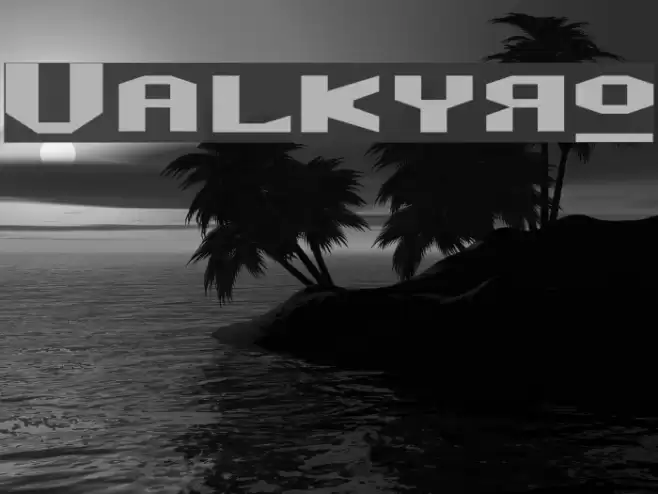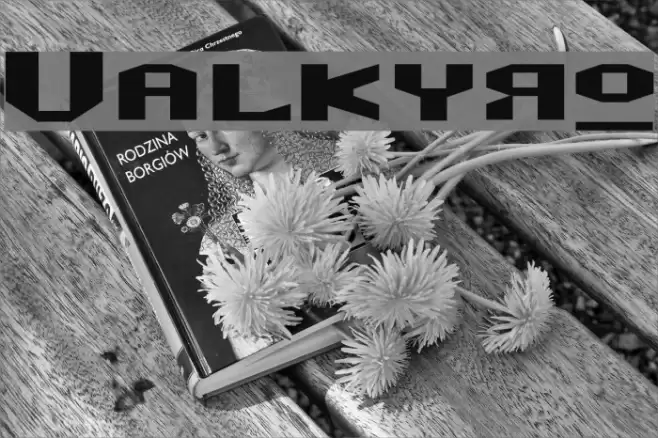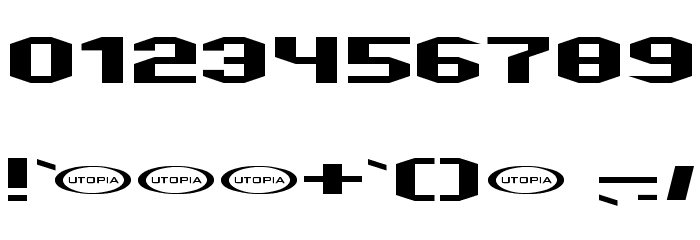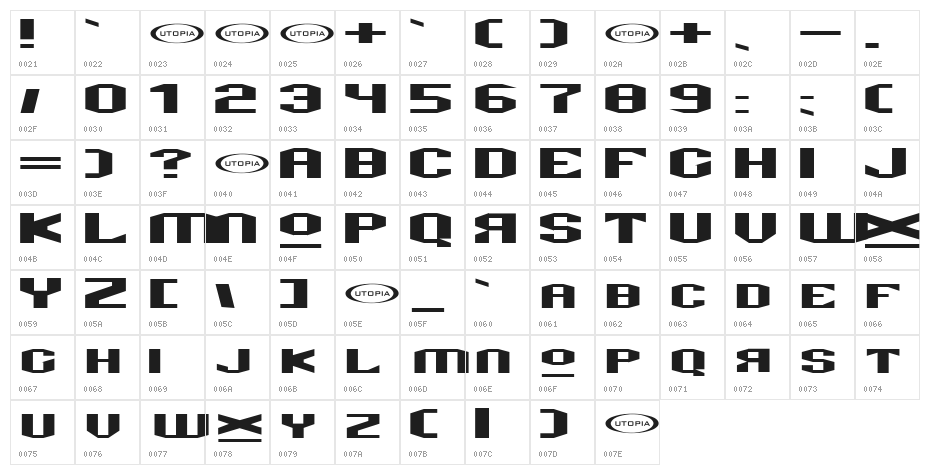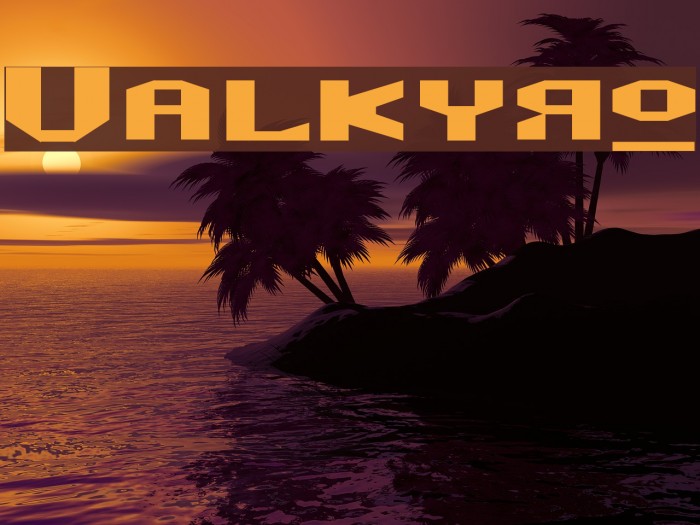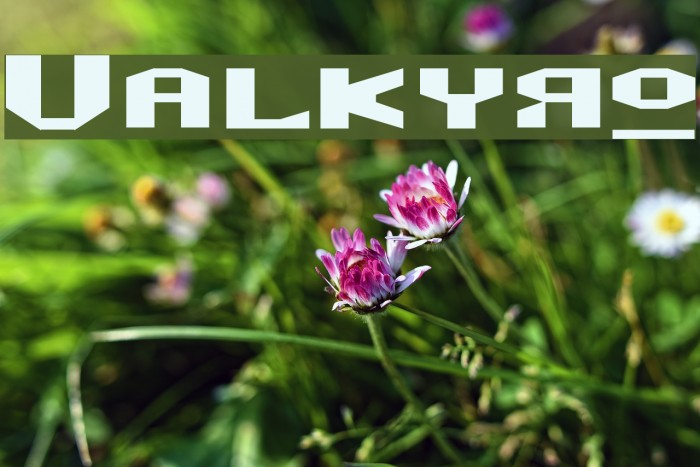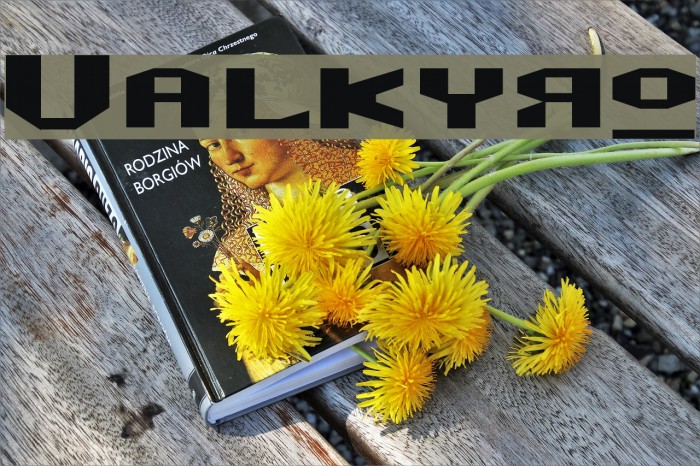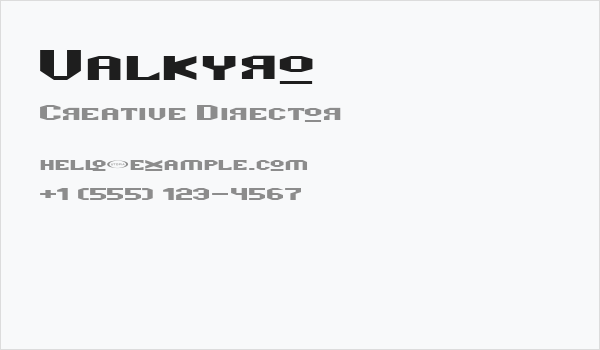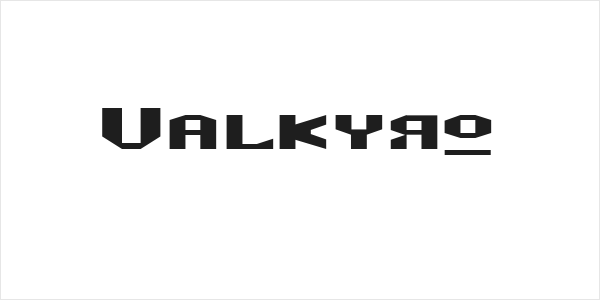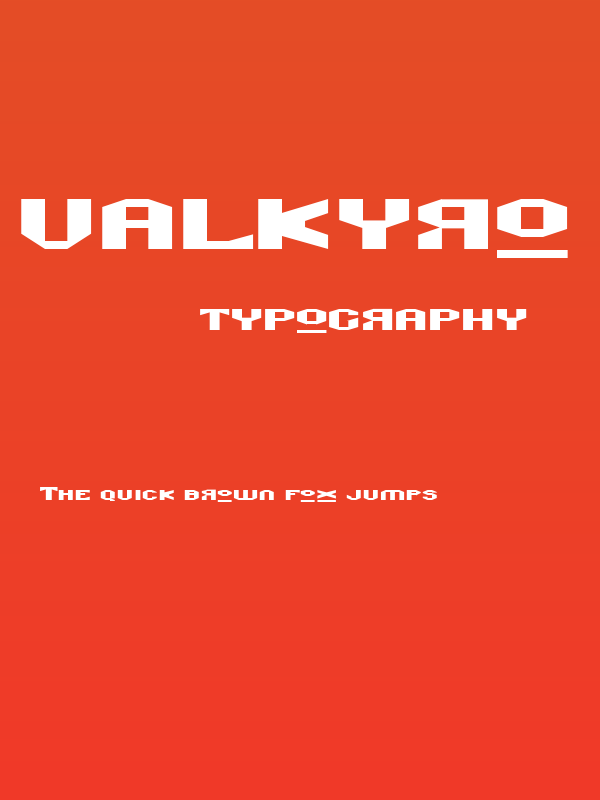
Valkyro Font
Valkyro Description
This font features a bold, geometric design with a futuristic and angular aesthetic. The characters are constructed with sharp edges and a blocky structure, giving them a strong and impactful presence. The uppercase and lowercase letters share a consistent style, maintaining a uniform appearance across the alphabet. The numbers and special characters are designed to match the overall theme, ensuring cohesion throughout. The font's unique style makes it suitable for projects that require a modern and edgy look.
A bold, geometric font with a futuristic and angular design from Capitals fonts.
- Proposed Projects: Ideal for sci-fi themed posters, video game titles, branding for tech companies, and modern logo designs.